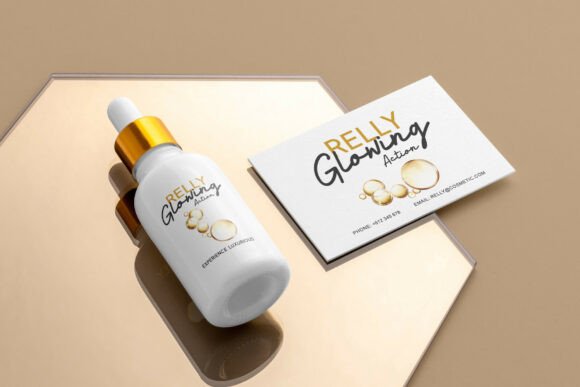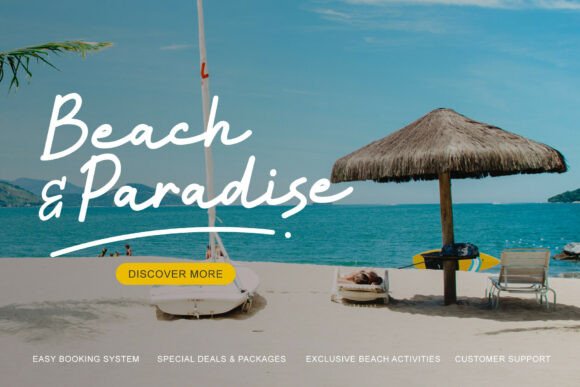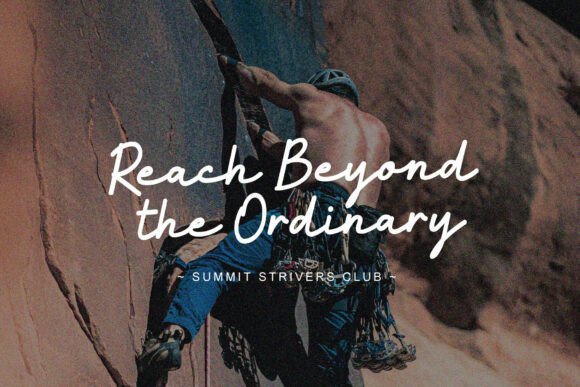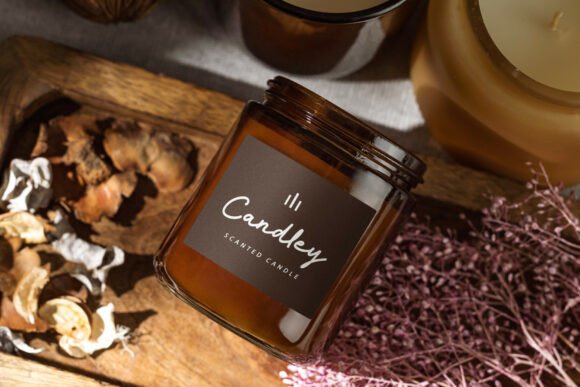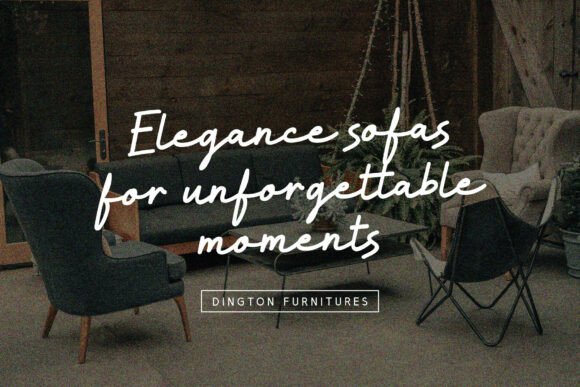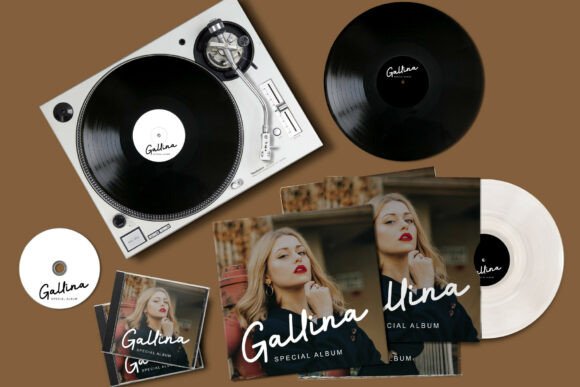
Discover the Elegance of Alysa Beauty Font
Have you ever been in the middle of a design project, and suddenly, you’re stuck on finding the perfect font? I recall a recent experience where I was working on a fashion brand’s logo, and I just couldn’t seem to find a font that captured the right balance of elegance and casualness. That’s when I stumbled upon Alysa Beauty, a game-changing casual handwritten font that has become my go-to for various creative projects.
Why Alysa Beauty Stole My Heart
Alysa Beauty is more than just a font – it’s a design companion that brings a unique blend of sophistication and authenticity to any project. Here are a few reasons why I’m obsessed with it:
- ✨ Elegant yet casual: Alysa Beauty strikes the perfect balance between elegance and casualness, making it suitable for a wide range of applications.
- ✅ Versatile: This font is ideal for fashion, cosmetics, weddings, lifestyle branding, F&B, and more.
- 💫 Refined personality: Alysa Beauty adds a touch of sophistication to any design, making it perfect for creative entrepreneurs looking to make a lasting impression.
A Few Quirks to Consider
While Alysa Beauty is an amazing font, it’s not without its limitations. Here are a few things to keep in mind:
- ⚠️ Limited use in very formal contexts: Alysa Beauty is best suited for creative projects; it might not be the best fit for very formal or traditional designs.
- 🤔 Requires attention to kerning: As with any handwritten font, kerning can be a bit tricky; make sure to adjust the spacing for optimal results.
- Experiment with OpenType features, such as stylistic alternates and glyphs, to add more personality to your design.
- Explore OpenType features, such as swashes and ligatures, to add more flair to your design.
The Story Behind Alysa Beauty
Alysa Beauty was crafted with the intention of creating a font that exudes elegance and sophistication while still being approachable and down-to-earth. The designer aimed to create a versatile font that could be used in various creative projects, from fashion to lifestyle branding.
| Font Name | Alysa Beauty Font |
| Author | Syauqi Studio |
| What makes Alysa Beauty unique? | Alysa Beauty’s unique blend of elegance and casualness makes it perfect for a wide range of creative projects. |
| Does Alysa Beauty support OpenType features? | Yes, Alysa Beauty supports OpenType features, such as stylistic alternates and glyphs, which can enhance your design. |